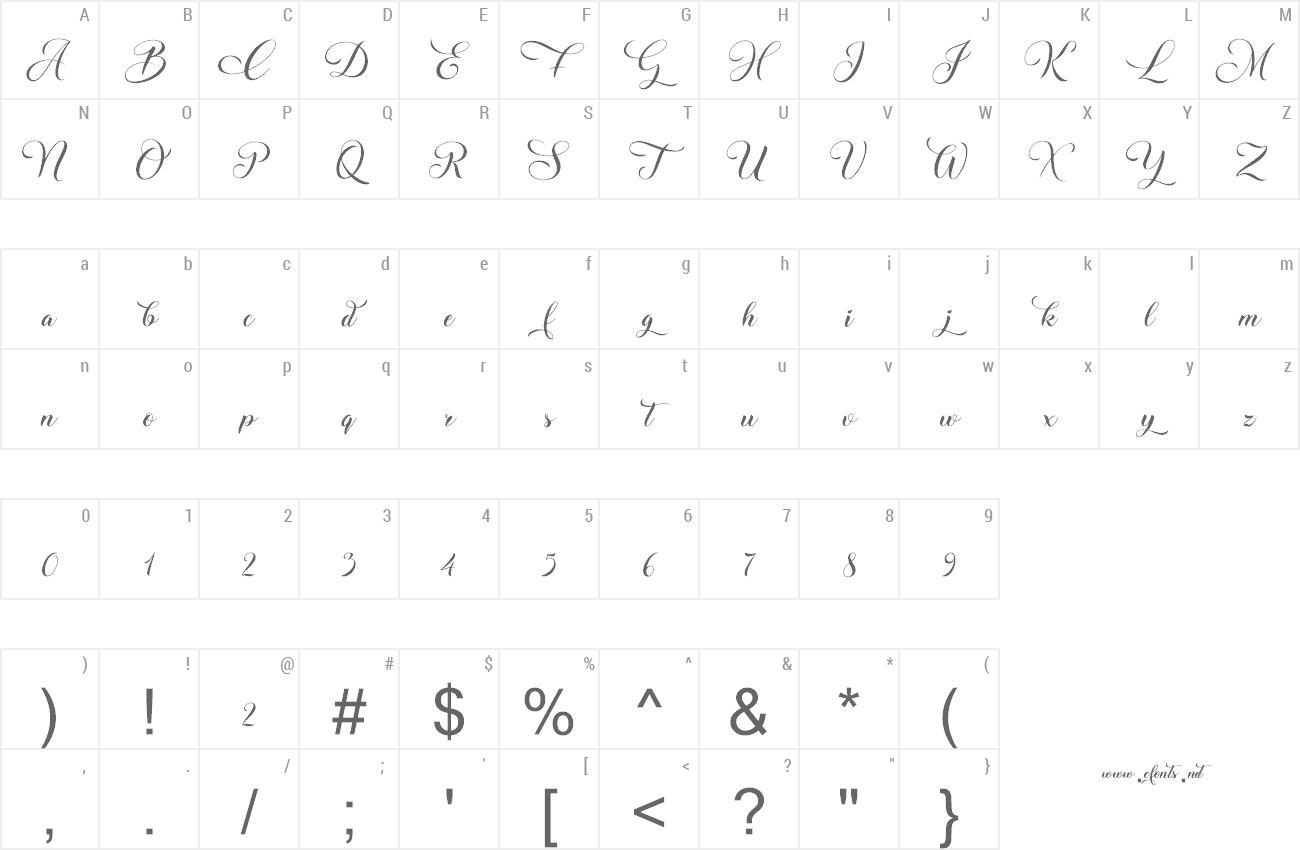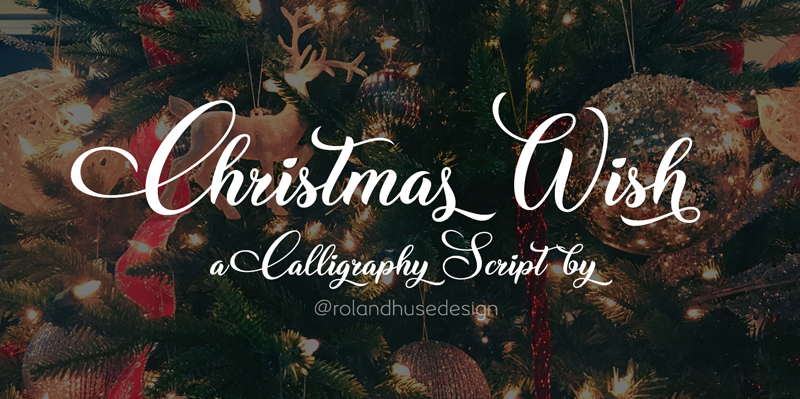
CHRISTMAS WISH is a cursive calligraphy style script that has a monoline version as well. This version is free for personal use. Full version contains terminals and ligatures for better connection and more natural flow, Eastern and Western European language accented characters. For full version and commercial license please contact me or visit http://store.rolandhuse.com For additional customizations (for logotypes for example) please email me at contact@rolandhuse.com You MAY NOT sell this font or claim them as your own. You MAY NOT edit or rename this font. You MAY NOT redistribute this font. Thank you I hope you like this font & Merry Christmas! Roland Instagram: @rolandhusedesign |